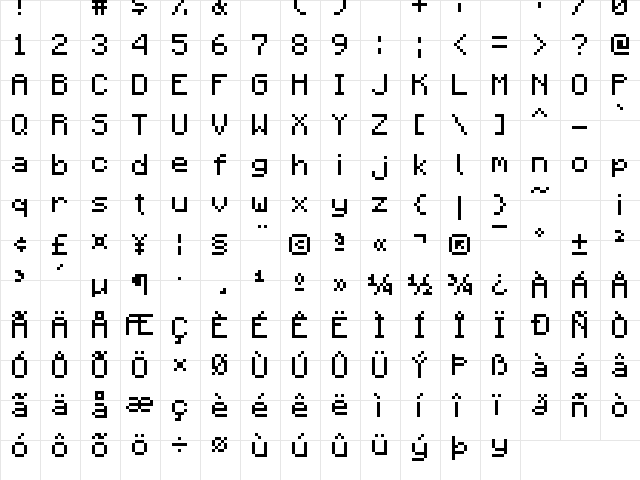
Five Fonts at Freddy's Regular
| Designer | Andrew Tyler |
Design Context for Five Fonts at Freddy's Typeface
Five Fonts at Freddy's is a composed and adaptable typeface that performs quietly and consistently across a wide range of design contexts.